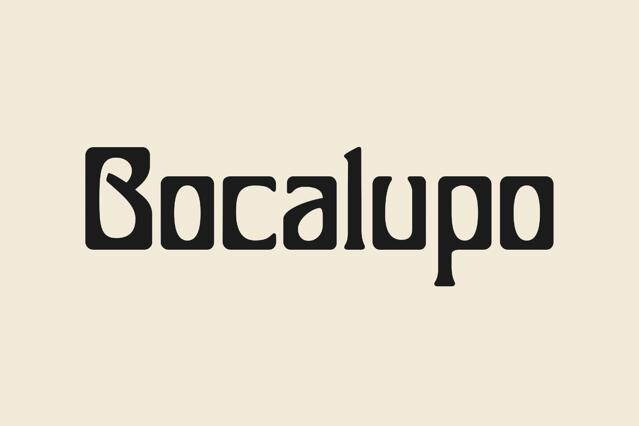
Psychedelic Fonts
These letters still seem to move even when the file is perfectly still. The collection spans classic 60s melt, groovy-disco waves, liquid abstract display, a psychedelic serif, reverse-contrast faces, acid western hybrids, and surreal experimental type.
Psychedelic fonts, born from posters that refused to behave
Letters that melt. Strokes swell and narrow like a living thing, words bend to fill whatever space is available, and the boundary between lettering and illustration mostly dissolves. The style has a precise birthplace: San Francisco, 1966, where Wes Wilson was drawing weekly concert posters for the Fillmore Auditorium and the Avalon Ballroom, shows by Jefferson Airplane and the Grateful Dead, at the exact moment the counterculture needed a visual language of its own.
Promoter Bill Graham complained that he couldn't read Wilson's posters, and Wilson answered that this was exactly why people stopped and stared at them. He was right: passersby stood at walls physically swaying as they traced the words. The funny detail is where the style came from. Wilson had seen an alphabet by Alfred Roller, a Viennese Art Nouveau artist from around 1908, absorbed those swelling forms, and pushed them somewhere Vienna never intended. Sixty-year-old European elegance, run through the sixties, became the shape of the whole psychedelic era.
Psychedelic fonts package their hand-drawn liquidity as type, which is trickier than it sounds. Wilson drew every word custom to fill its own space, so a good typeface in the genre has alternates and swashes to fake the custom fit, and the better ones let letters interlock the way the posters did.
Degrees of melt in psychedelic type
- Classic 60s melt: the full concert-poster treatment, swelling strokes and letters flowing into each other's space.
- Groovy-disco crossover: rounder, friendlier waves from the decade after, where the trip mellowed into a dance floor.
- Liquid abstract display: contemporary faces pushing the melt to its edge, letterforms halfway back to being shapes.
- Psychedelic serifs: traditional structures bent into the style, formality dissolving mid-word.
- Reverse-contrast trips: faces with the thick and thin strokes swapped, a deliberately wrong weight distribution that makes the eye do a double take.
- Acid western faces: saloon lettering run through the 60s, a collision of two poster traditions that shouldn't work and does.
- Surreal experimental type: the far shore of the genre: legibility is fully negotiable and the alphabet is a suggestion.
Handling psychedelic type
Start by accepting the trade you're making: this genre exchanges reading speed for staring time. But the trade only pays off when the audience has a reason to stay. A festival poster earns ten seconds of decoding; a banner someone scrolls past earns one. So before you set anything in melting letters, ask how long your viewer will realistically stand there. If the answer is "a glance," give the psychedelic font the shortest, most guessable word in the design, or reconsider.
Then make the word fit its space, because that's the actual craft of the genre. The original posters weren't set in type at all, and a psychedelic font typed in a straight line across the layout misses the entire point, it's a wave lying flat. Work the word: scale letters against each other, let the baseline drift, use the alternates and swashes these fonts usually ship with, and push the forms until the word occupies its area the way liquid fills a glass. This is one of the few genres where distorting the type isn't a crime against the designer. It's collaboration; the font was drawn expecting your hands on it.
And think of color as half the font. These letterforms grew up alongside a very specific palette game: vibrating complementary pairs, orange against blue, magenta against green, tuned so hard the edges seem to buzz. That said, the vibration is a spice: keep it in the display word and give the rest of the design somewhere calm to stand.
Where the melt belongs
- Concert and festival posters, the format the style was invented for.
- Album covers and playlist art across psych rock, funk, and modern indie.
- Craft beverage labels: IPAs, kombucha, anything small-batch and loud.
- Streetwear drops and tie-dye-adjacent apparel.
- Event graphics for yoga festivals and art fairs.
- Editorial illustration for pieces about the 60s, music history, or altered states.
The late-60s San Francisco concert poster scene, where lettering melted, swelled, and filled every available space until the poster became one breathing shape. Modern psychedelic fonts package that hand-lettered liquidity into type.
Because the source material was lettering, not type: every word was drawn to fill its own shape, letters interlocking and swelling to fit. A font has to fake that custom fit, and alternates, swashes, and interlocking pairs are the machinery. A psychedelic face with one glyph per letter produces suspiciously orderly chaos.
Short words, large sizes, high color contrast, and nothing else competing. The original posters got away with murder because the whole poster was the message. Give a psychedelic font one word to distort and let the layout stay sober around it.
Vibrating complementary pairs are the historical answer: orange on blue, magenta on green. Modern uses often flip it, running psychedelic forms in restrained palettes so the shape does the talking. Both work; lukewarm middle grounds don't.
Music and festival graphics first, then craft beverage packaging, streetwear, and editorial pieces about altered states of any kind. Anywhere nostalgia for 1968 sells, which turns out to be a surprisingly stable market.